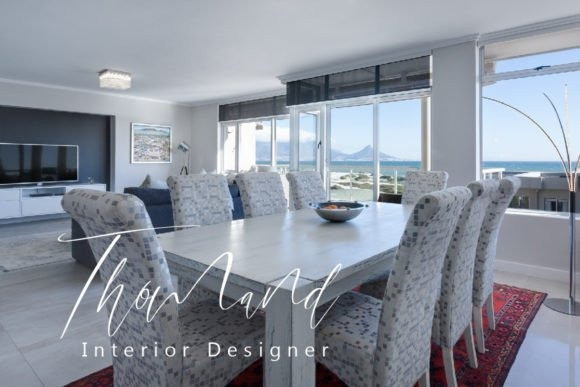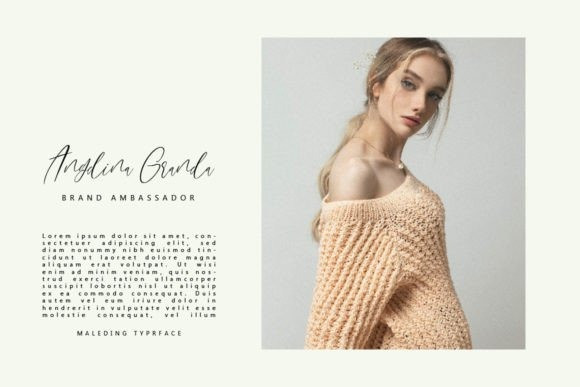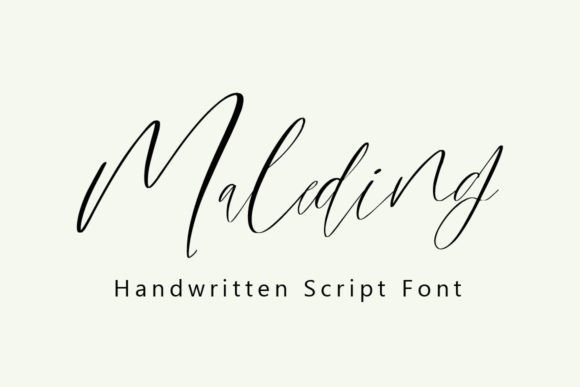
Maleding Font
Maleding Handwritten Font is a timeless design that features elegant, tapered serifs and refined letterforms that evoke a sense of luxury and sophistication. Perfect for high-end branding, editorial layouts, and other refined designs, Classique Serif adds a touch of classic beauty to any project.